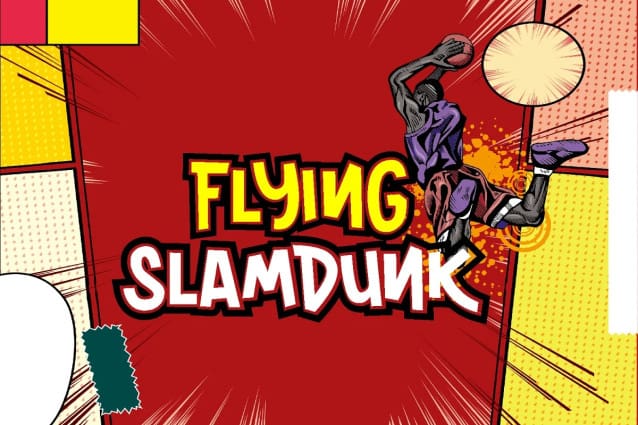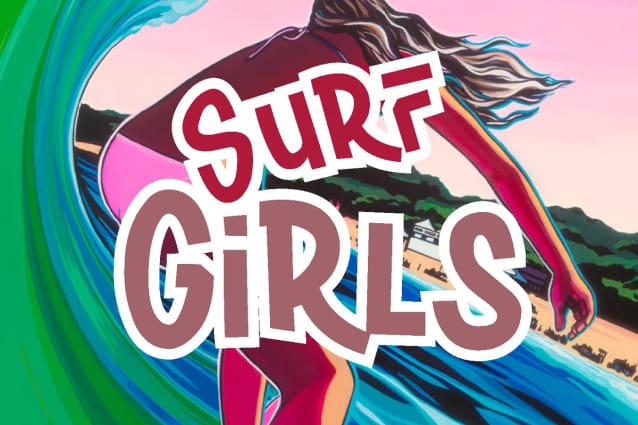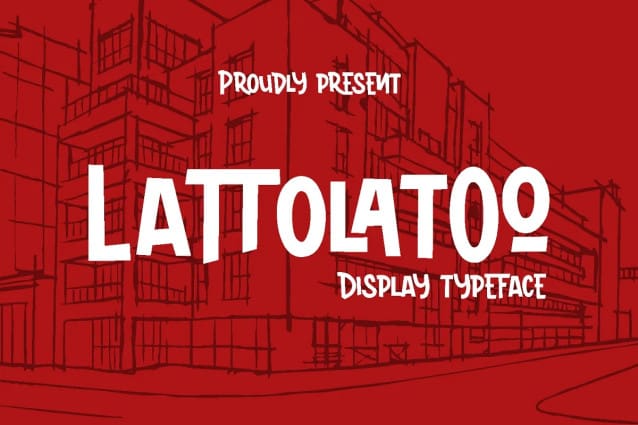
Lattolatoo Display Font, is a unique modern display font with a fun and trendy kind of street style twist. From poster designs to t-shirts and packaging, Lattolatoo will give your designs an alternative to the minimal look and supercharge your creative work.
Lattolatoo Display Font is Lattolatoo hand-drawn, having an almost handwritten appearance; the characters skip the baseline giving it a charming yet modern look and feel. Alternative All characters A to Z one alternative. To make your text look less repetitive, you can substitute the letters for something else—this makes your design look more like handwriting.
Ligature Lattolatoo has standard ligatures, 7 of them in total. You can activate it through the glyph panel in Adobe applications. The binder makes a huge difference in the look of Beautiful Freak. It switches the order of two popular letters making your design look more individual. opentype Please note: Alternatives and Binders use OpenType features. Therefore, you’ll need a design application to access these options—an application such as Adobe Photoshop, Illustrator, or InDesign.